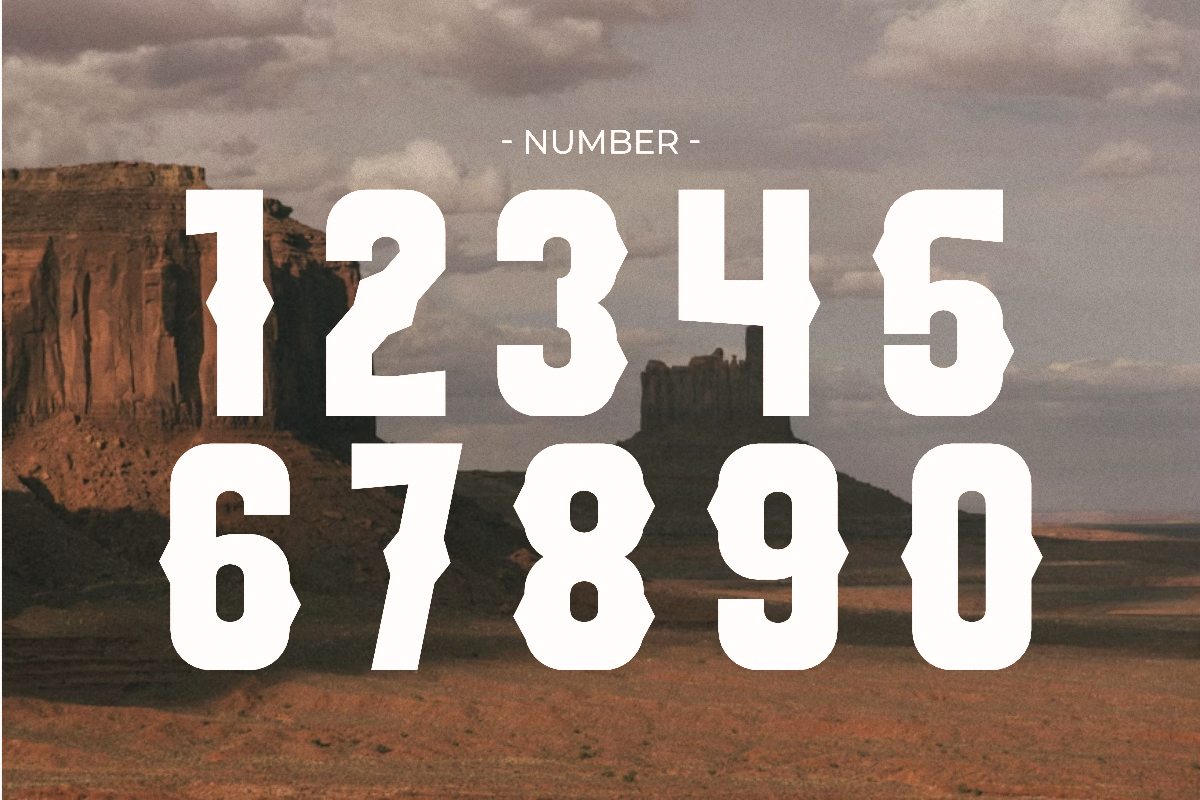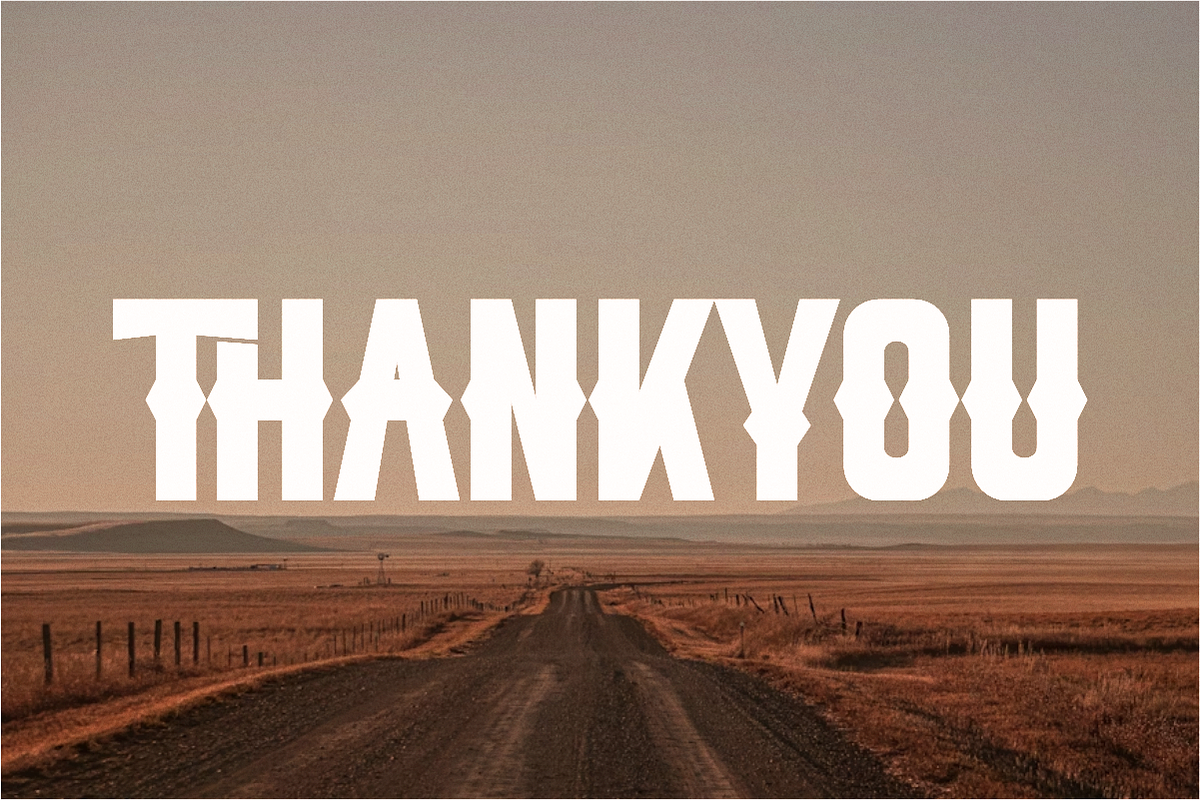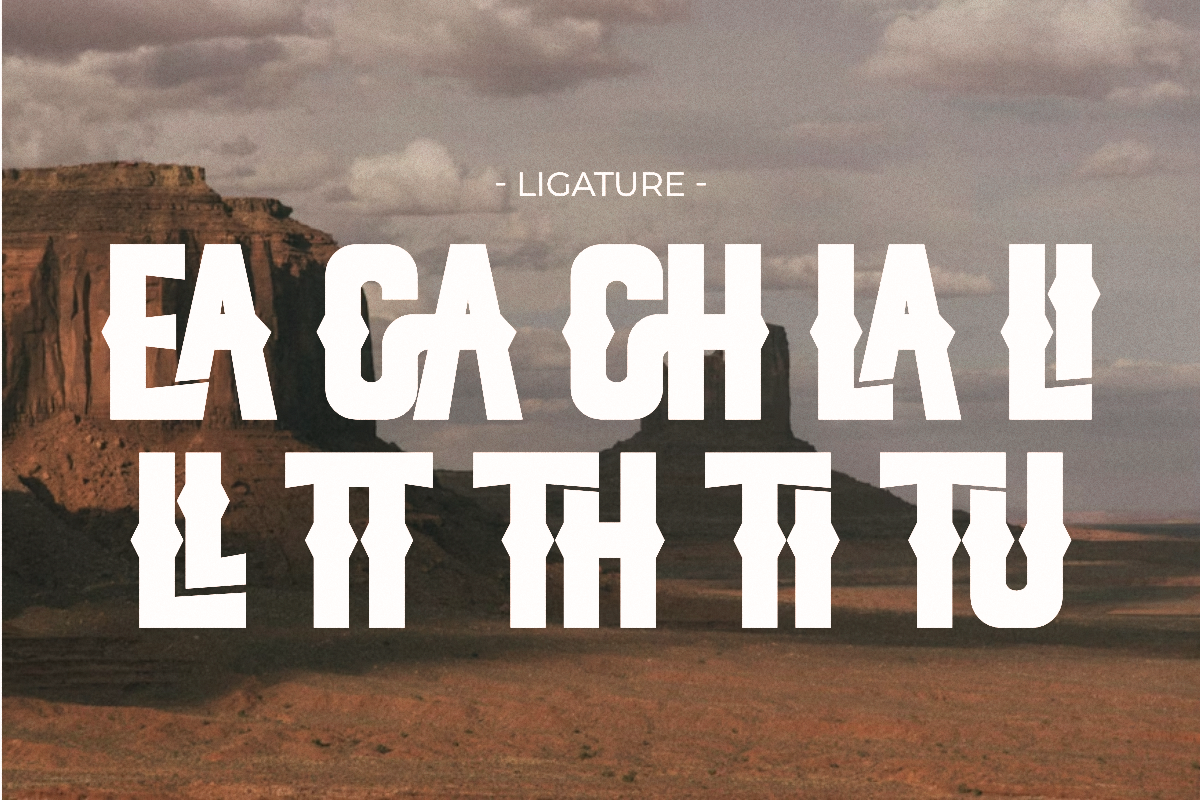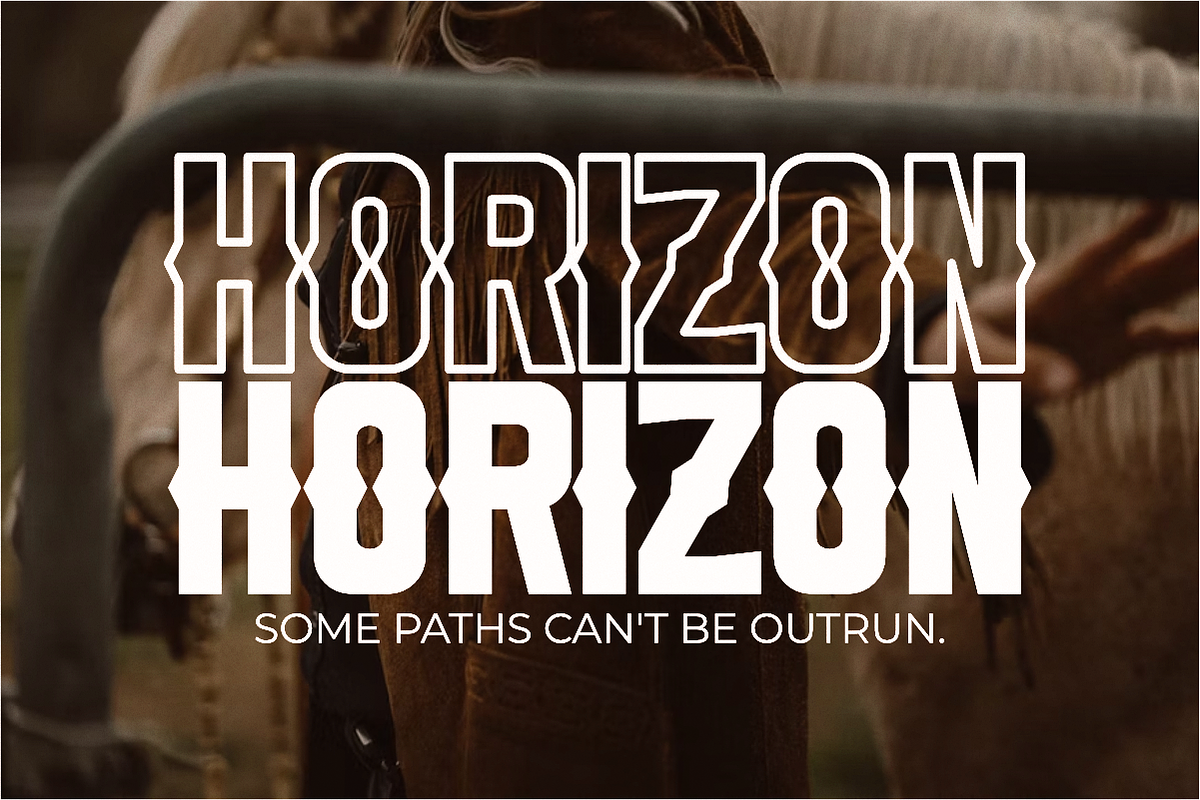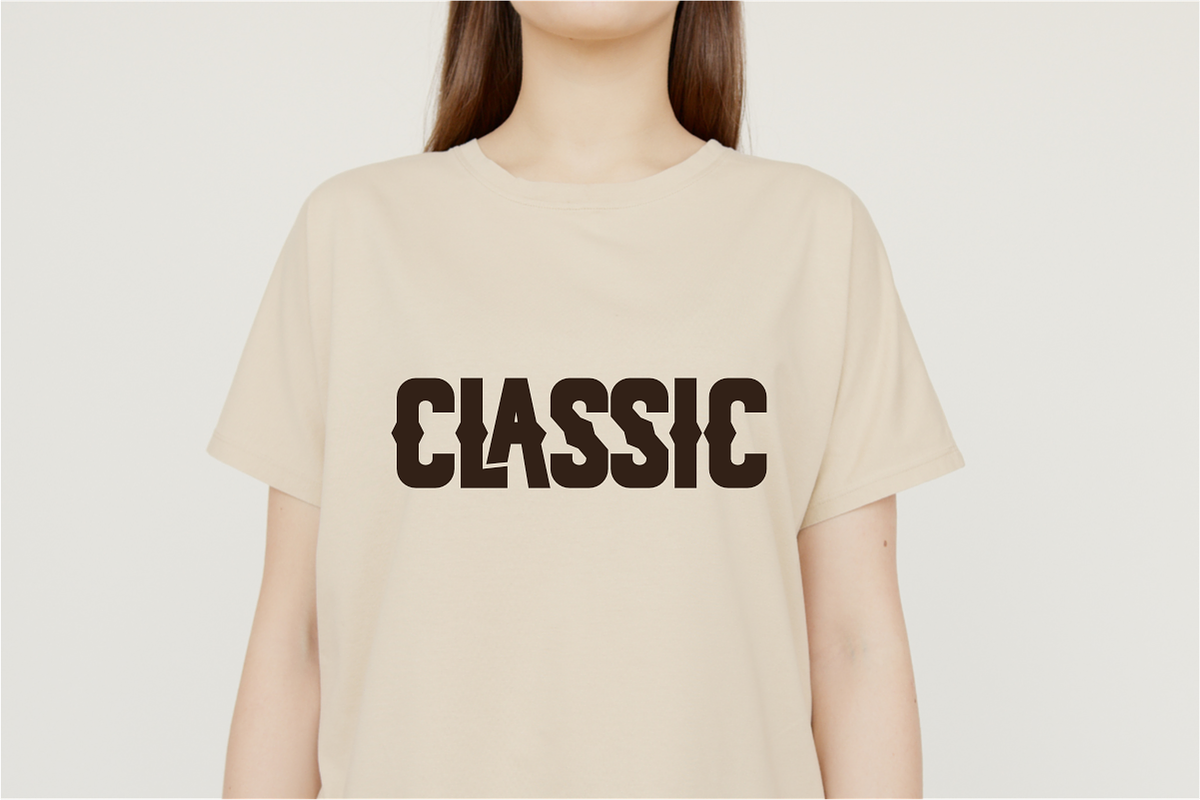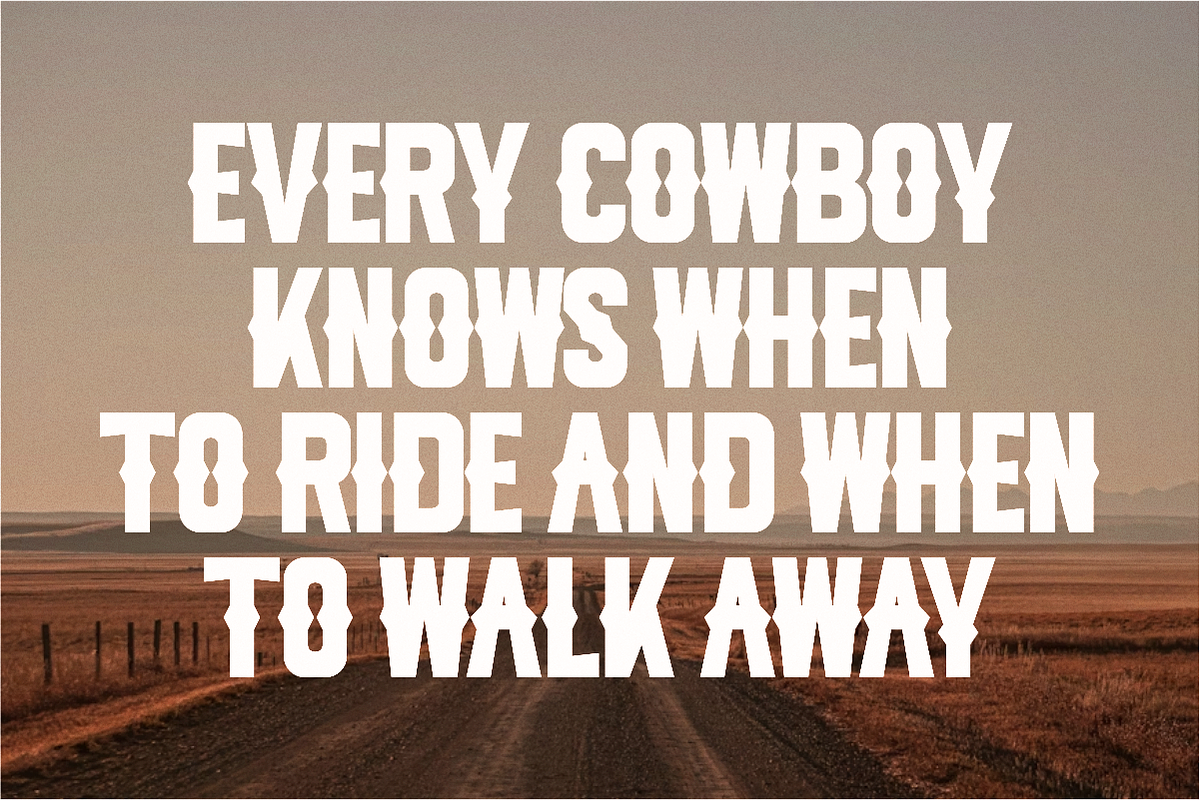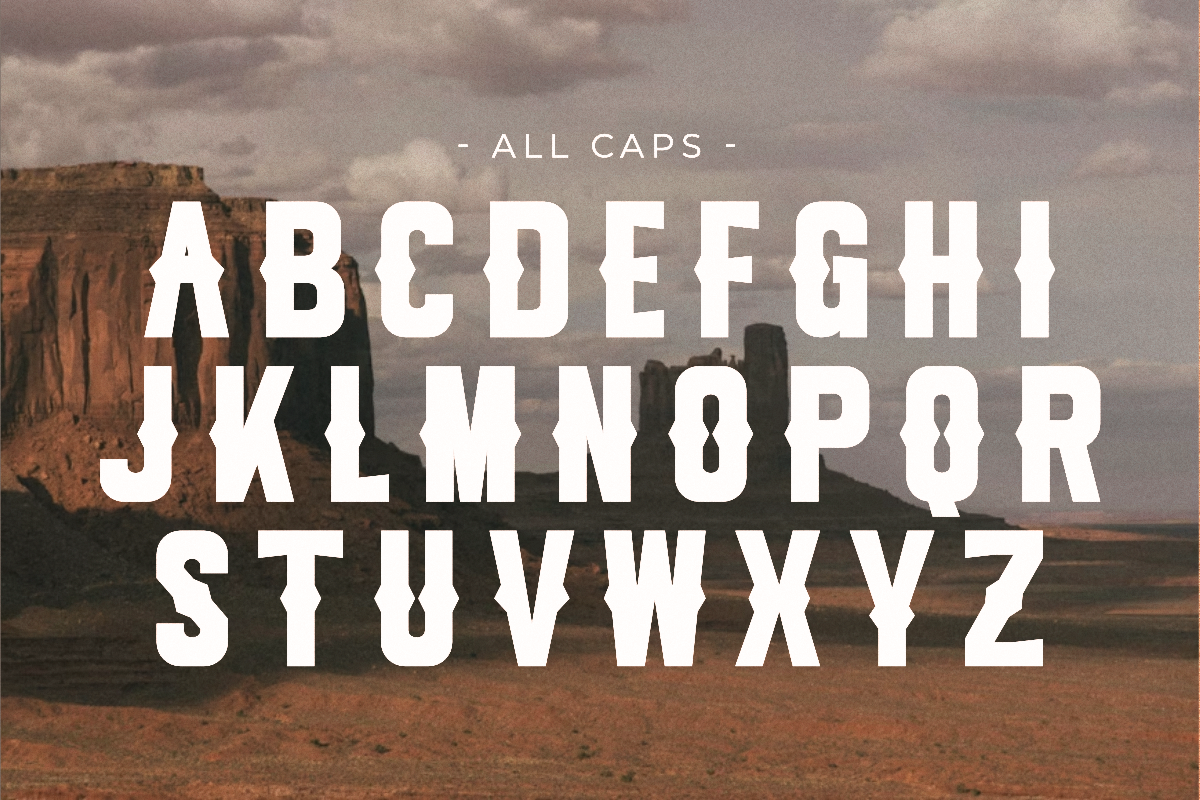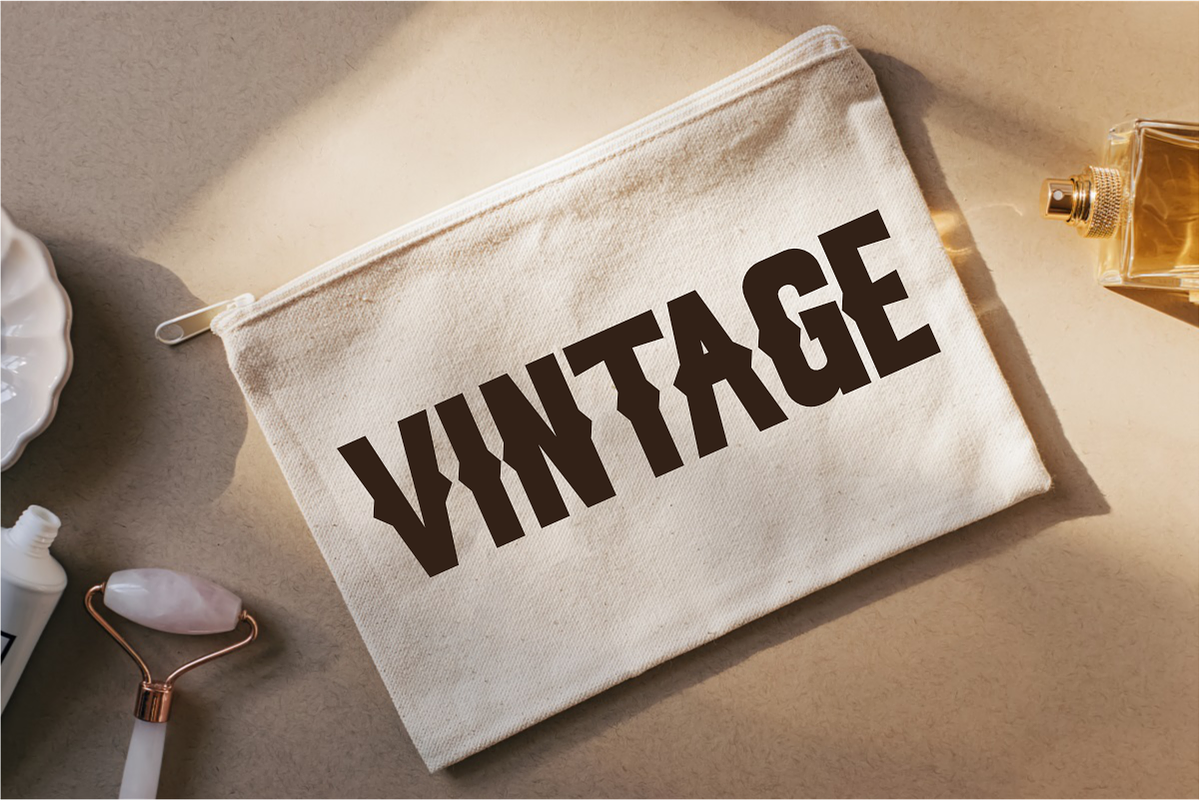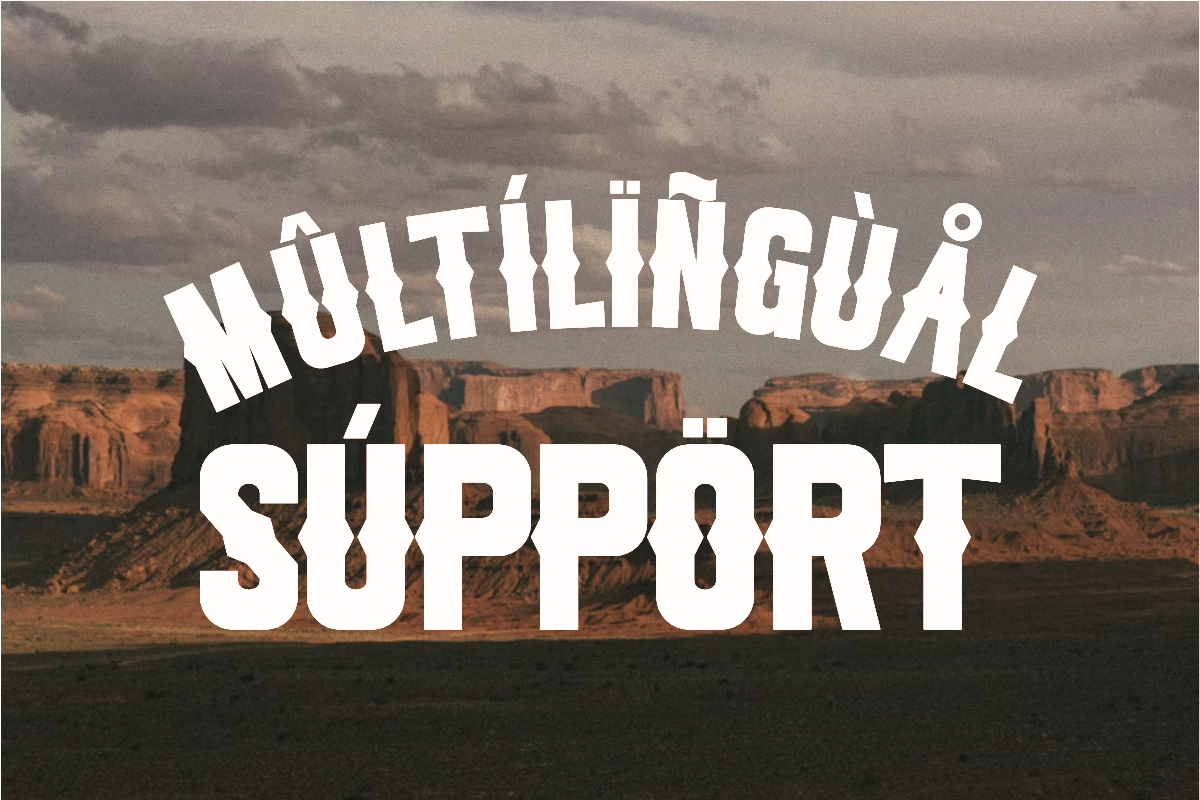
Scream - Vintage Western Sans Serif
Scream is a condensed Western vintage typeface with a bold and rugged aesthetic. This unique display font features a distorted, hand-drawn look, giving it a powerful and slightly chaotic feel. Perfect for T-shirt designs, posters, and branding, this font adds an authentic vintage cowboy vibe to any project. It is ideal for headlines, logos, and anything that needs to grab attention with a distinctive Old West flair.